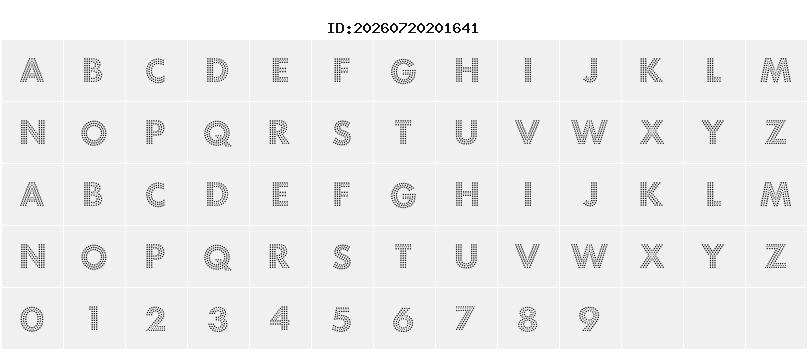
FortunaDotLighter Preview
About FortunaDotLighter.ttf
FortunaDotLighter.ttf is a modern, elegant sans-serif font designed for ultimate readability and visual harmony. Perfect for branding, headlines, web design, and print materials.